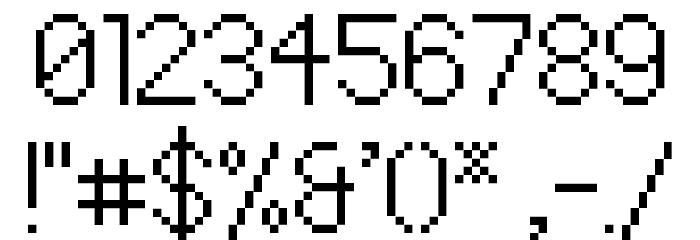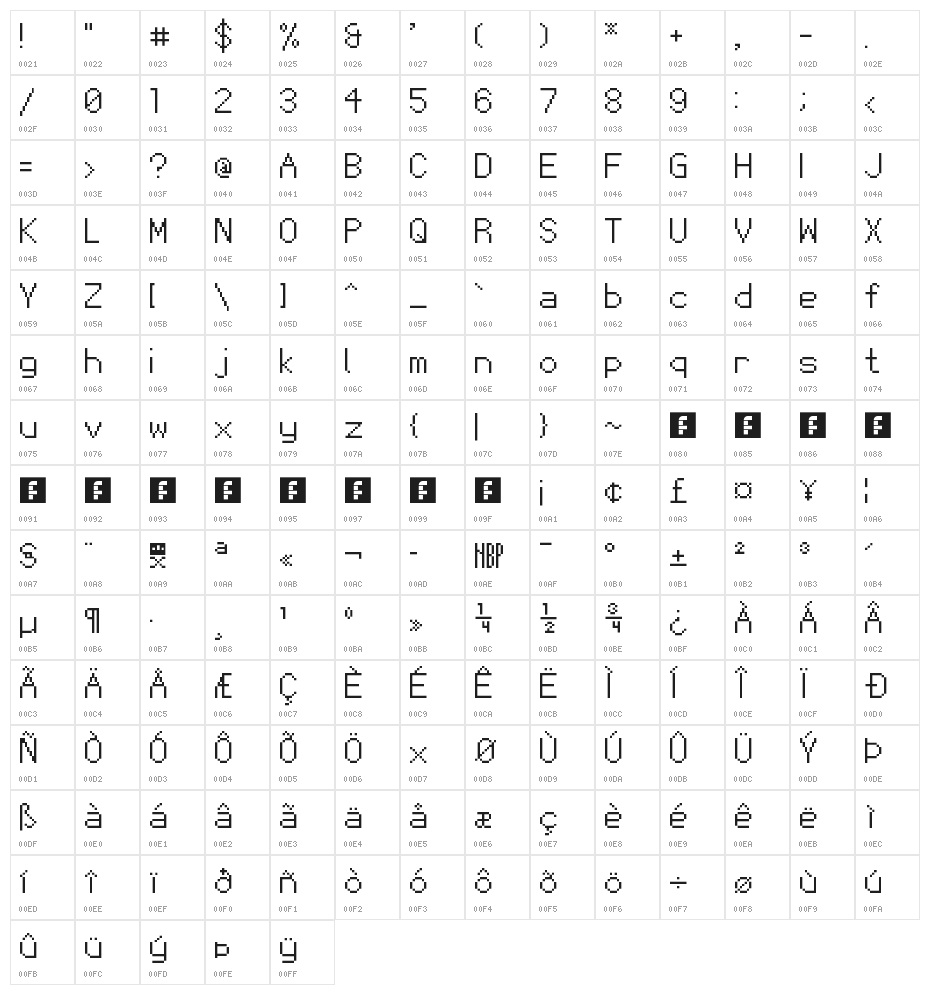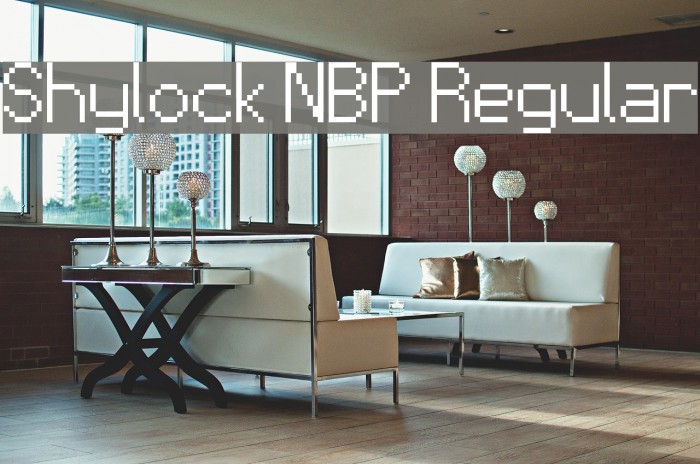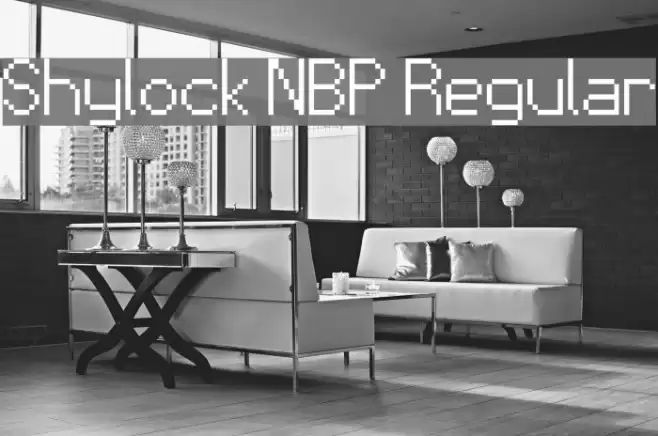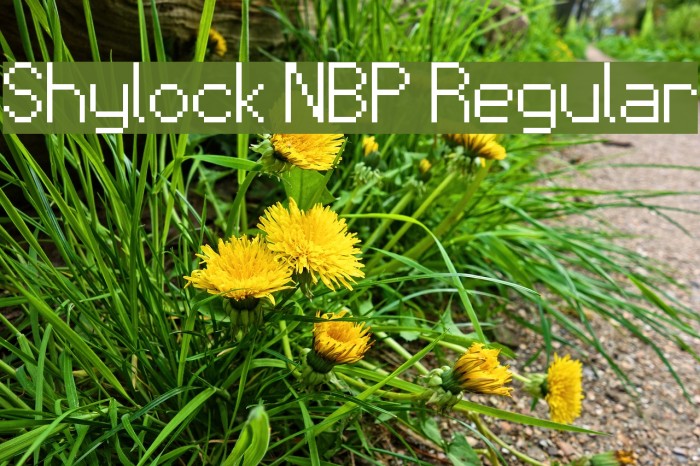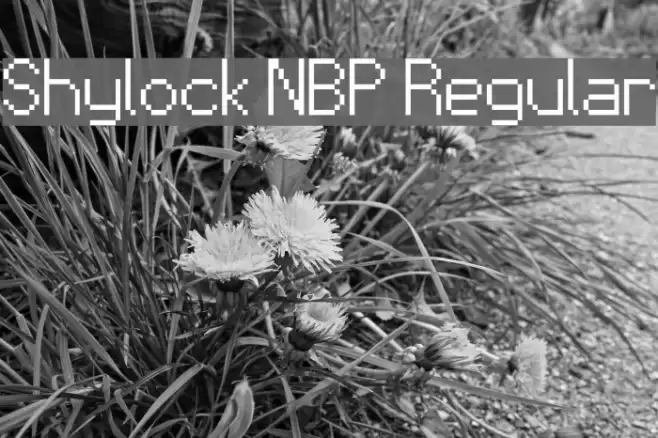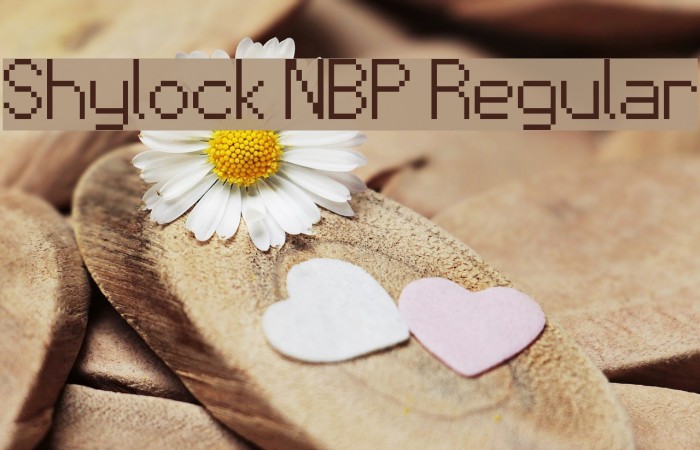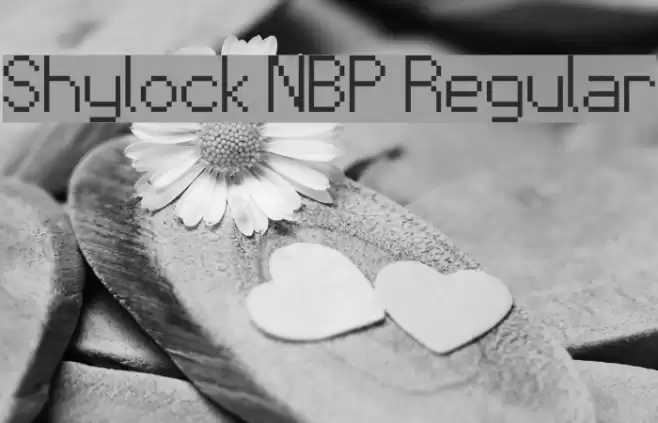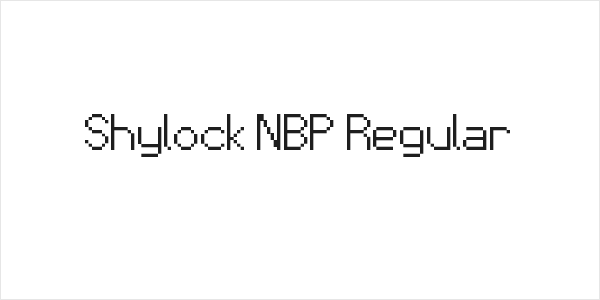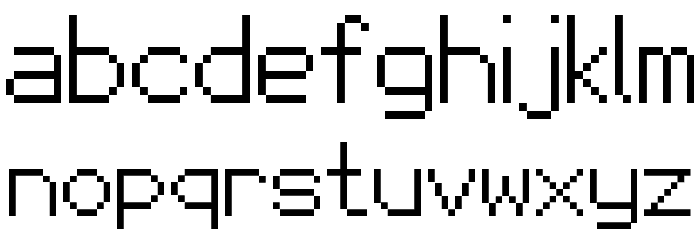
Shylock NBP Regular Font
Shylock NBP Regular Description
This font features a pixelated, grid-like design reminiscent of early digital displays and retro video games. Each character is constructed with a uniform square grid, giving it a distinctly blocky and geometric appearance. The uppercase and lowercase letters maintain consistent proportions, enhancing readability while preserving the nostalgic aesthetic. Numbers and special characters follow the same design principles, ensuring a cohesive look across all glyphs. The font's simplicity and clarity make it suitable for projects that aim to evoke a sense of nostalgia or a digital, tech-inspired theme.
| Overall Style | Retro, Digital |
| Use Case | Headlines, Logos, Digital displays |
| Proposed Projects | Ideal for retro video game graphics, digital art projects, tech-themed posters, and nostalgic branding. |